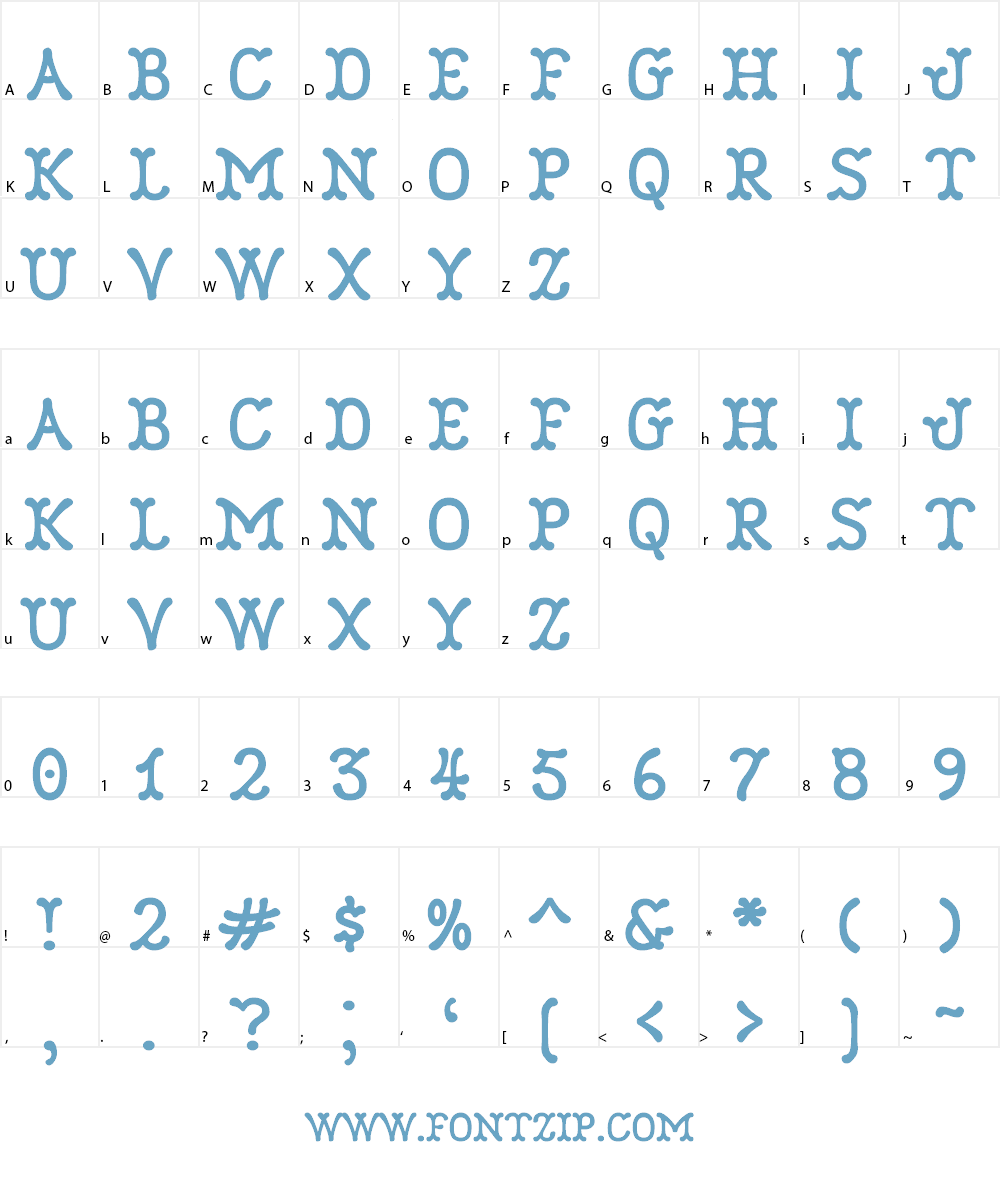
A fun display typeface reminiscent of an earlier era, Named after one of my dearest. I hope you like! Free for personal use. Donate to use commercially. Email me at nymphont at yahoo dot com for more info. ~Lauren